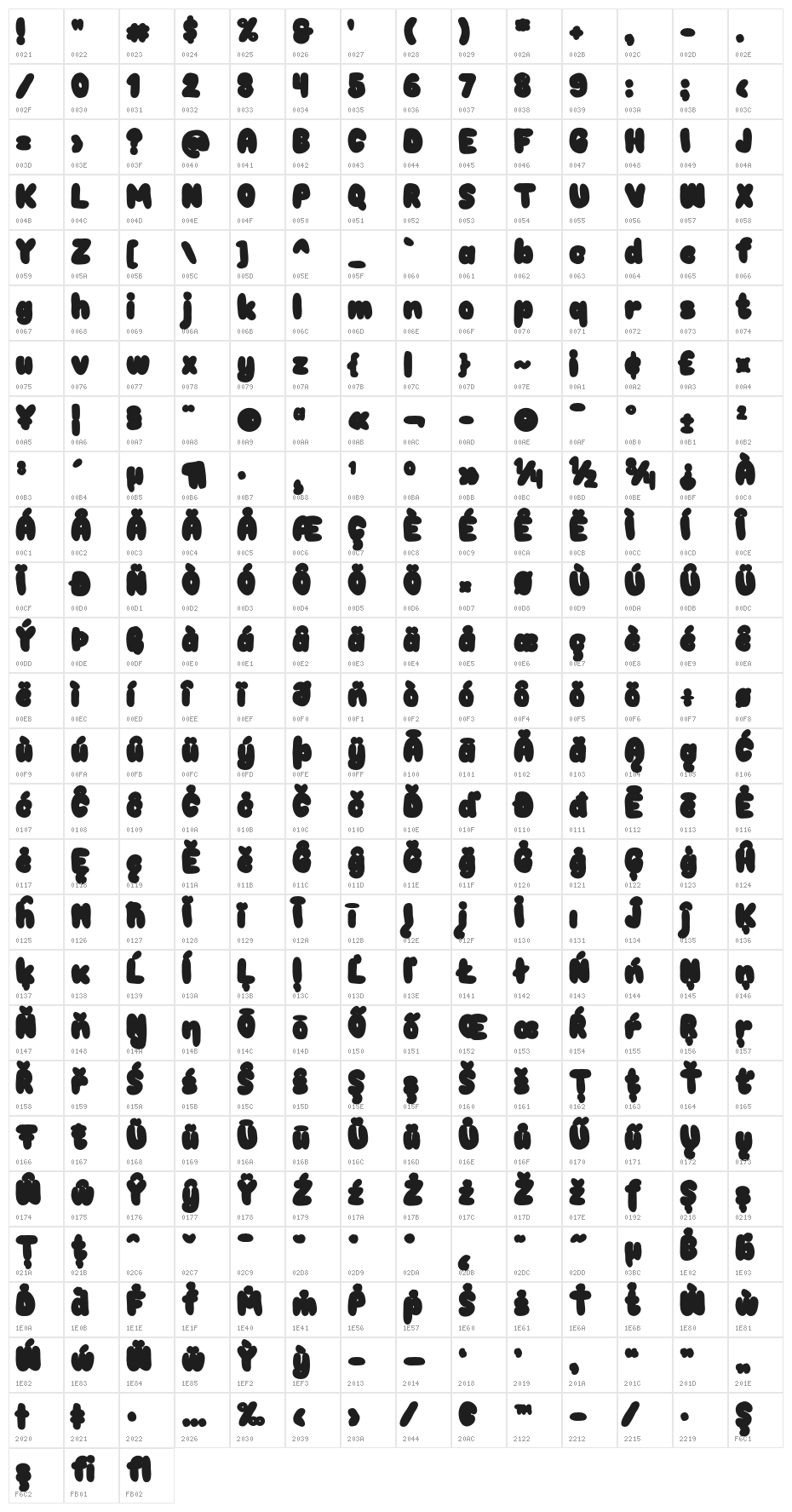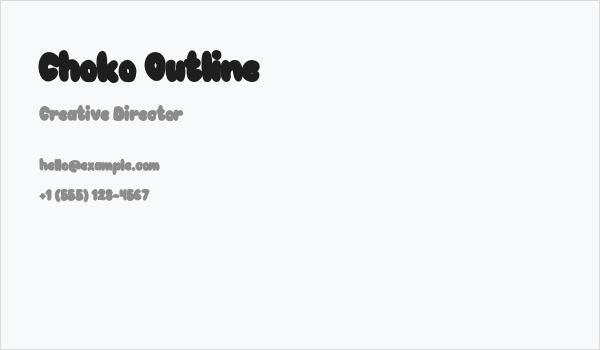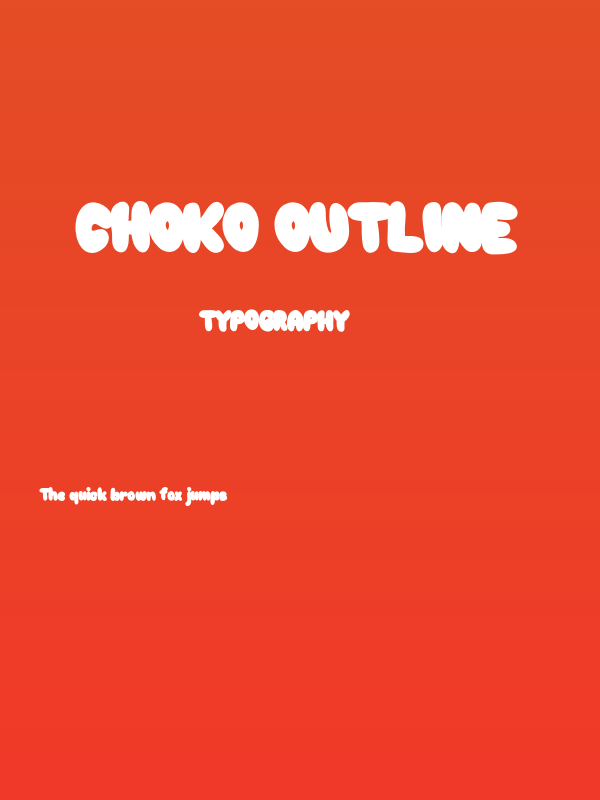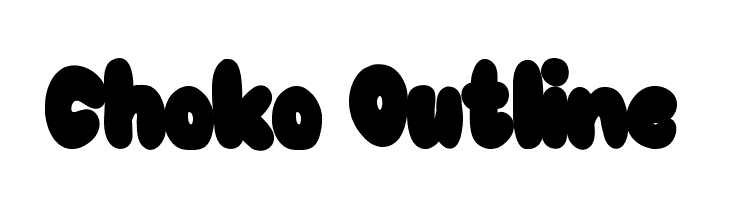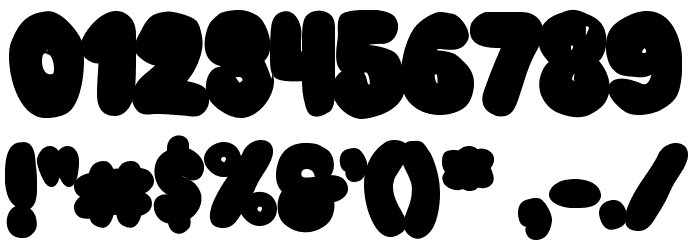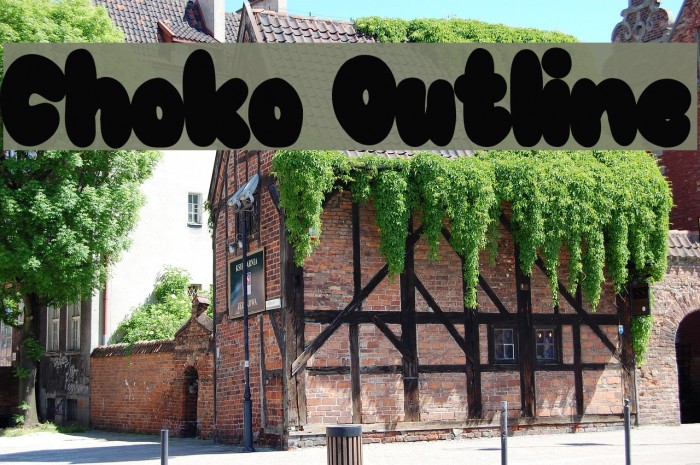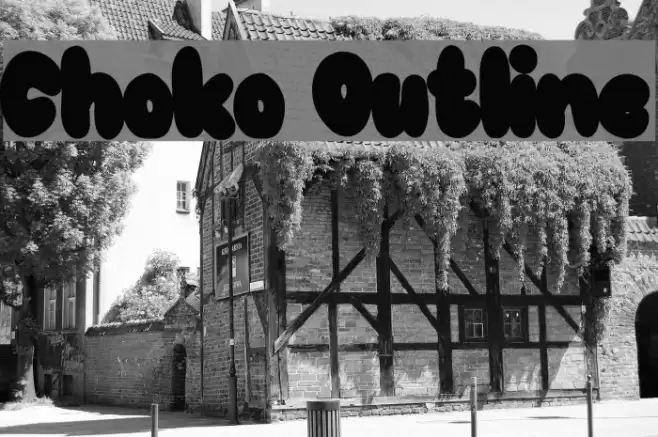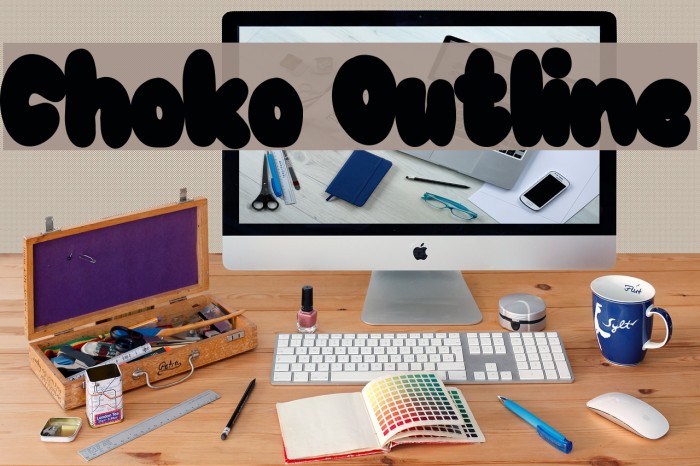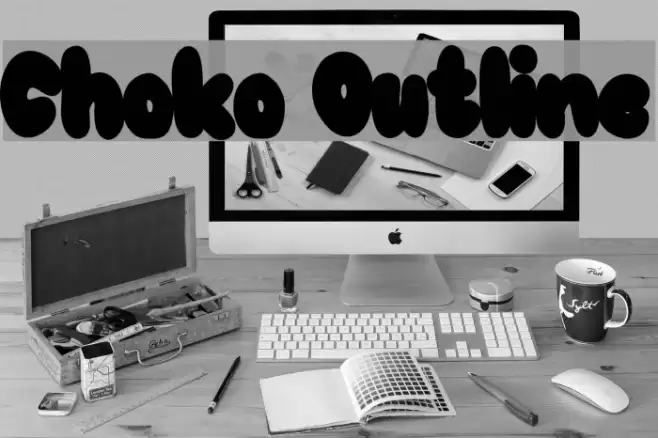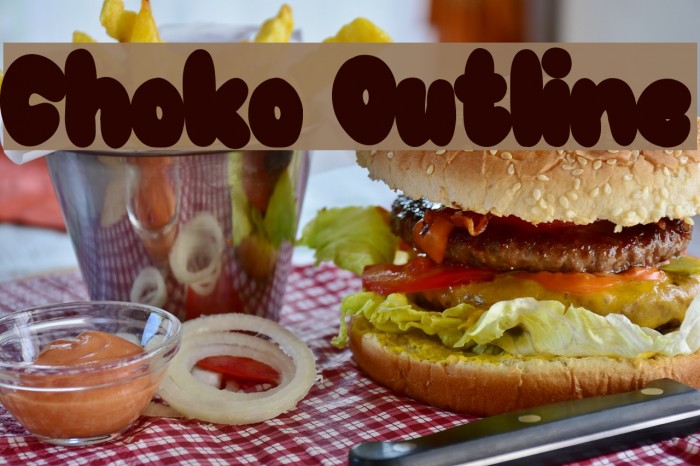
Choko Outline Font
Choko Outline Description
This playful and bold font features a bubbly, rounded style that exudes a sense of fun and creativity. The characters are thick and heavy, with a consistent stroke width that gives them a strong presence. The rounded edges and lack of sharp angles contribute to a friendly and approachable appearance. This font is highly decorative, making it ideal for projects that require a touch of whimsy or a youthful vibe. The letters are closely spaced, enhancing the compact and cohesive look of the text. The uniformity in stroke thickness results in low contrast, emphasizing the playful nature of the design.
| Overall Style | Playful, Decorative |
| Use Case | Logos, Headlines, Posters |
| Proposed Projects | Ideal for children's books, playful branding, party invitations, and creative posters. |